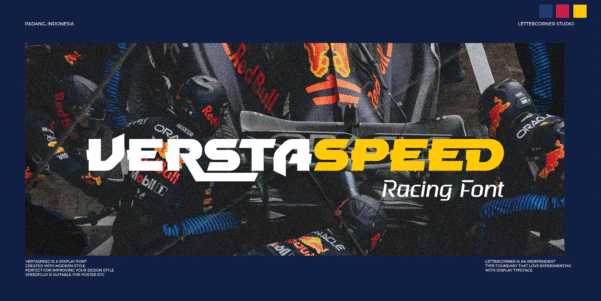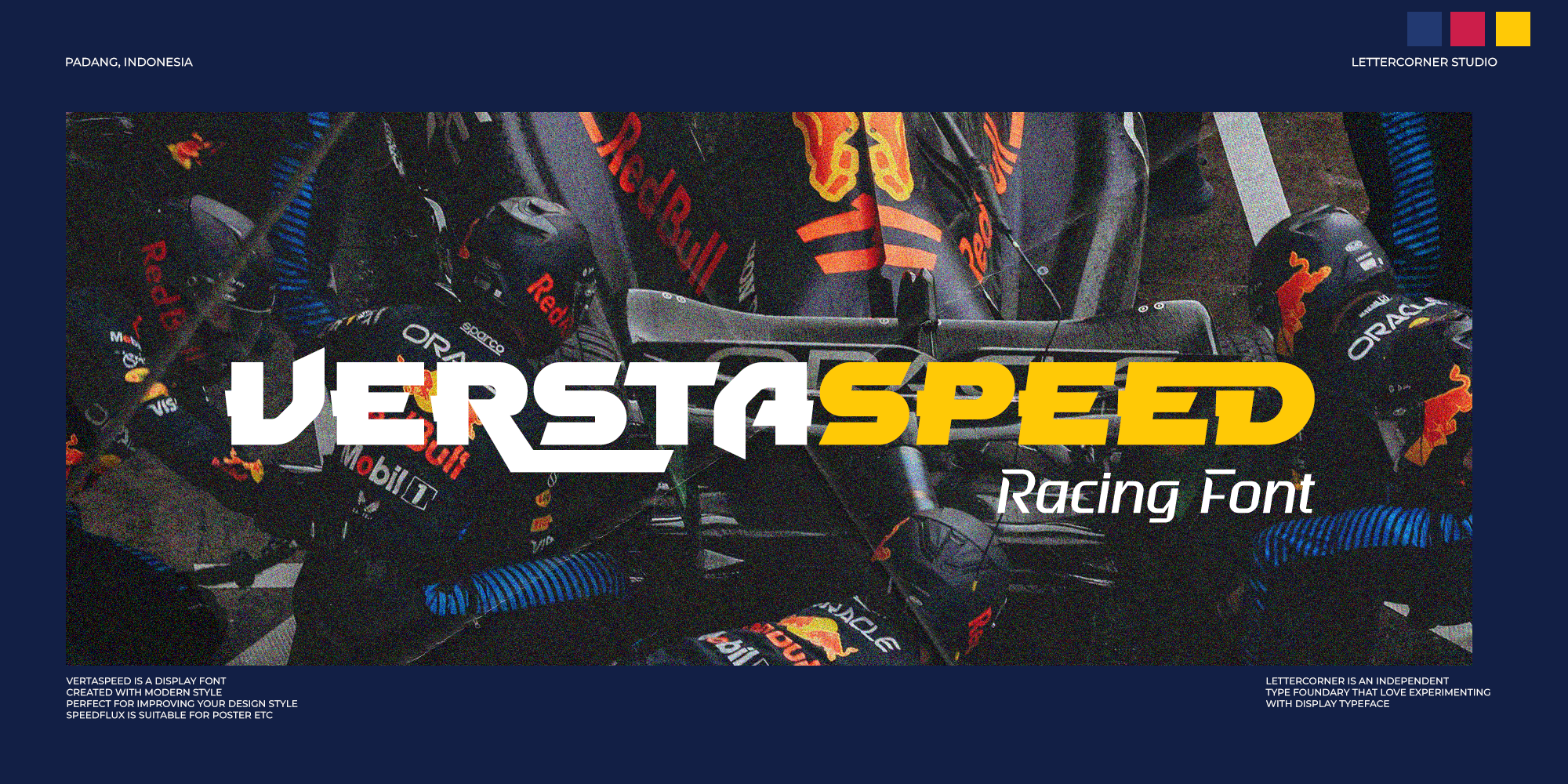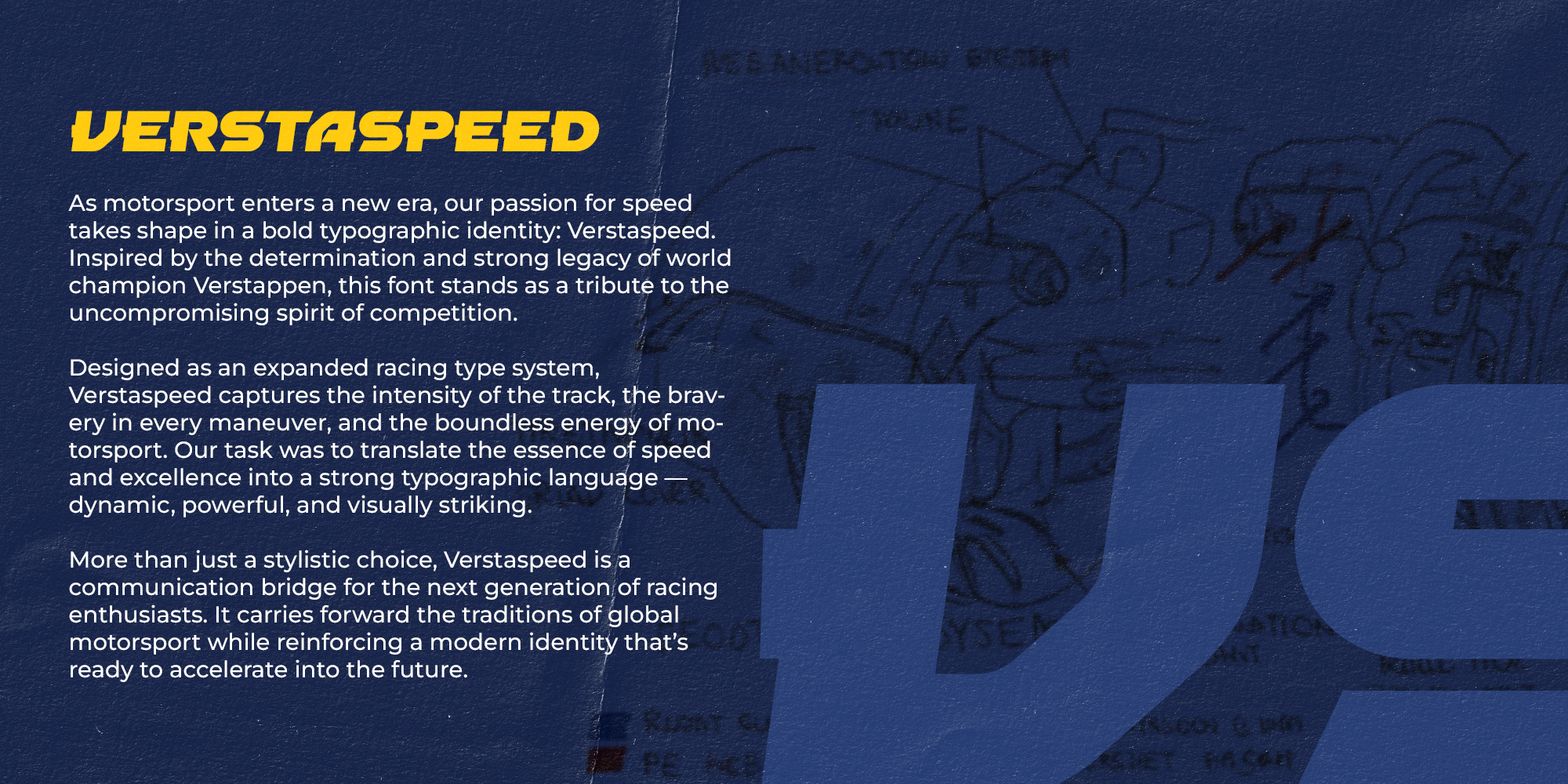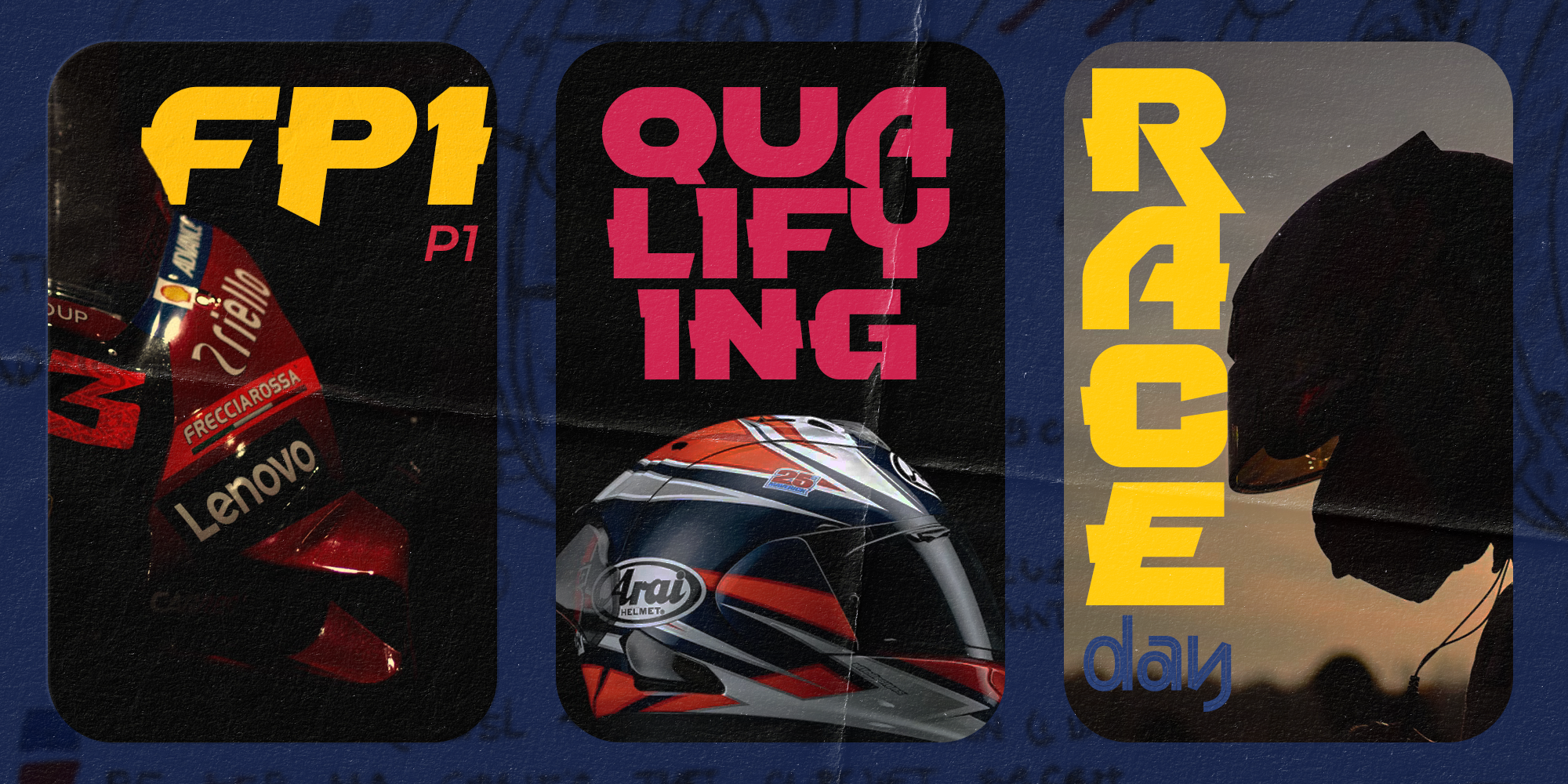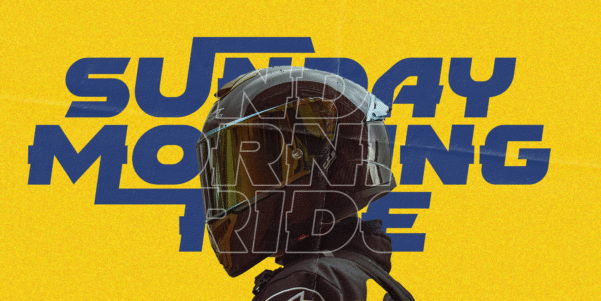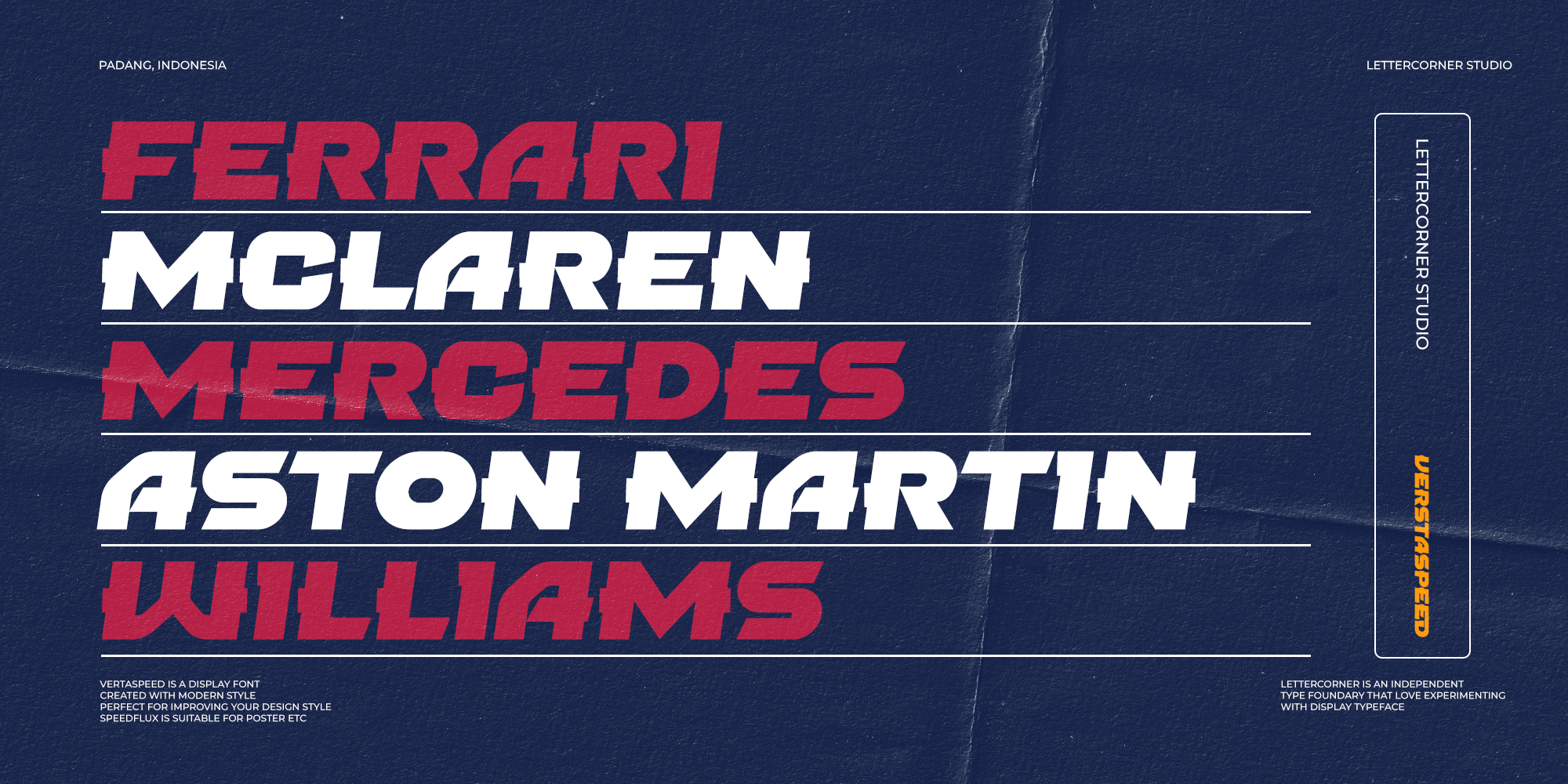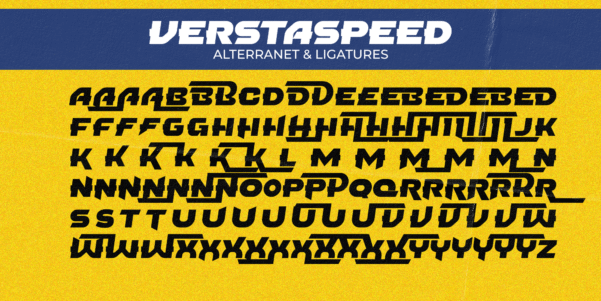
Verstaspeed
Verstaspeed — Alternates & Ligatures for Racing Identity
Verstaspeed isn’t only about speed-inspired letterforms — it’s a complete racing type system. With a wide set of alternates and ligatures, this font gives designers the freedom to create dynamic, fast-moving wordmarks that feel alive on the track.
Alternates
• Extended Speed Bars: Many letters (A, E, K, N, R, U, W, Y) include long horizontal extensions that emphasize motion.
• Aggressive Angled Cuts: Variants of F, H, T, and V feature sharper diagonals for a more aggressive look.
• Aerodynamic Shapes: Rounded alternates in O, P, Q balance the sharp cuts, giving more versatility in branding.
Ligatures
• Connected Racing Lines: Ligatures create a flowing rhythm between letters, simulating the continuous speed of a race track.
• Custom Pairings: Optimized for common motorsport terms, numbers, and abbreviations, ensuring seamless branding.
• Dynamic Wordmarks: Perfect for logos, race car liveries, and bold typographic posters.
By combining these alternates and ligatures, designers can build countless variations — from compact sponsor badges to wide and extended racing logos.
Verstaspeed is not just typography; it’s motion captured in letters.